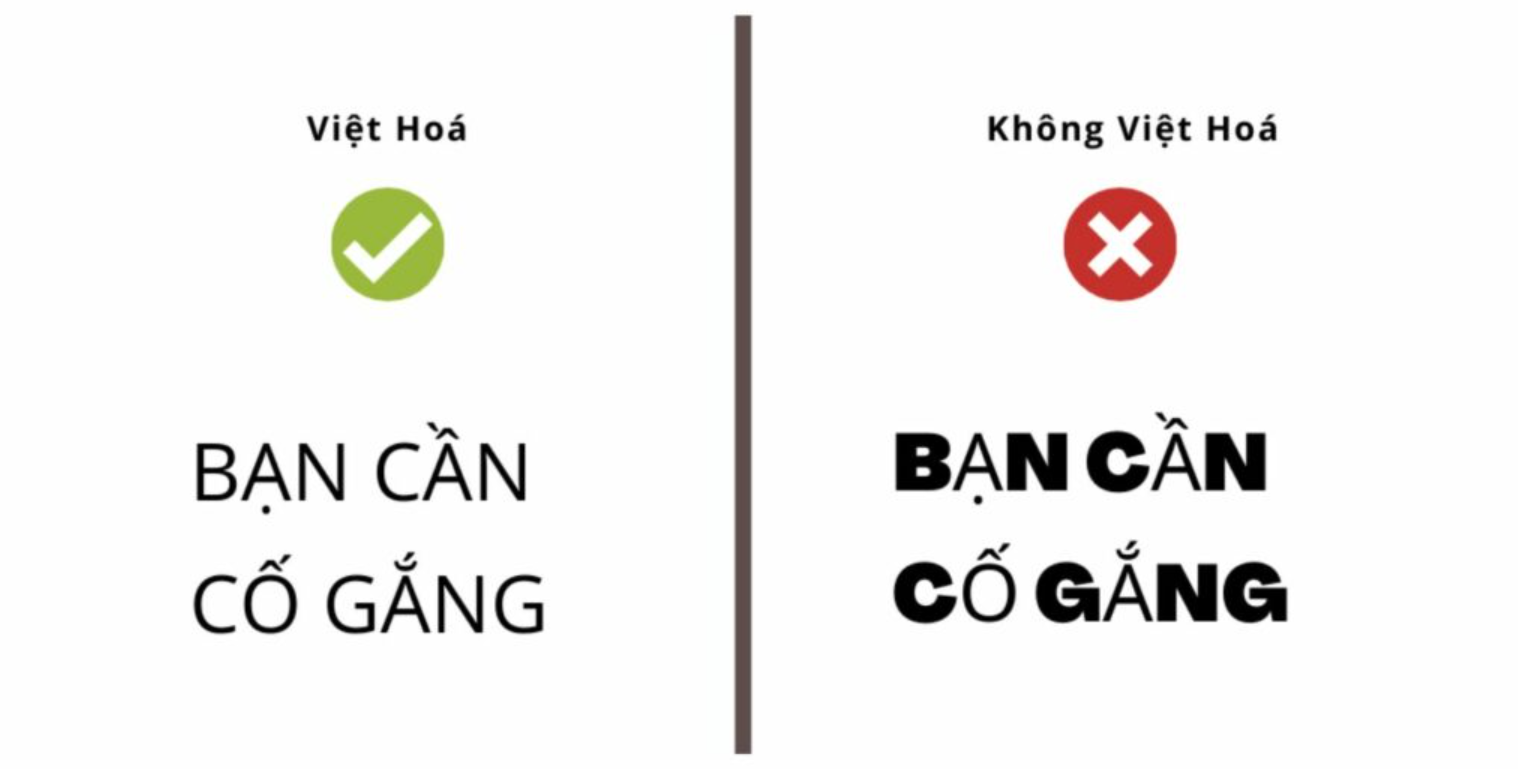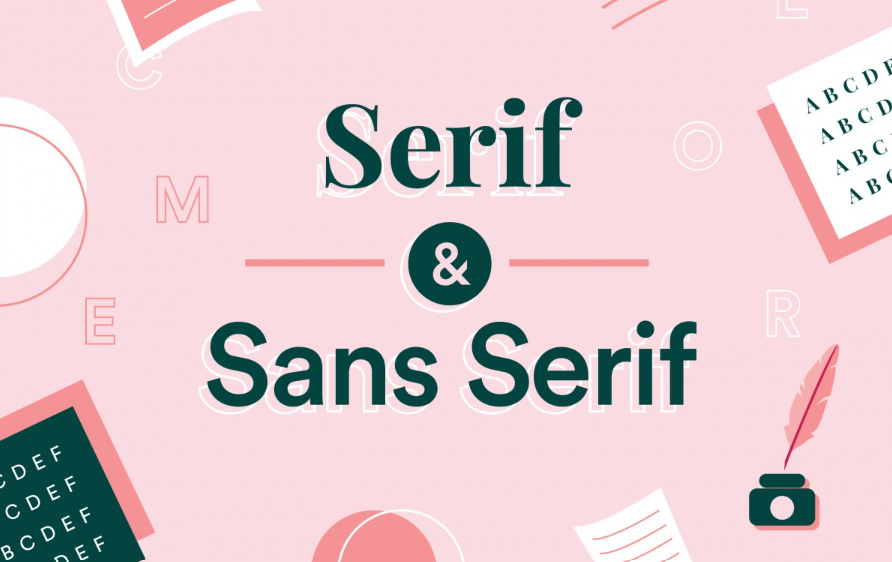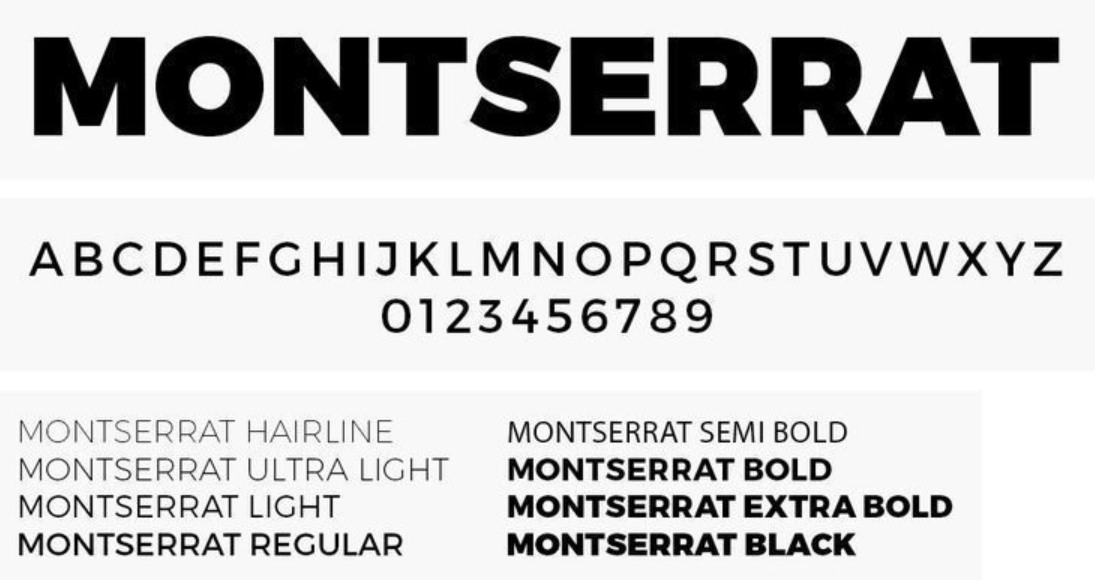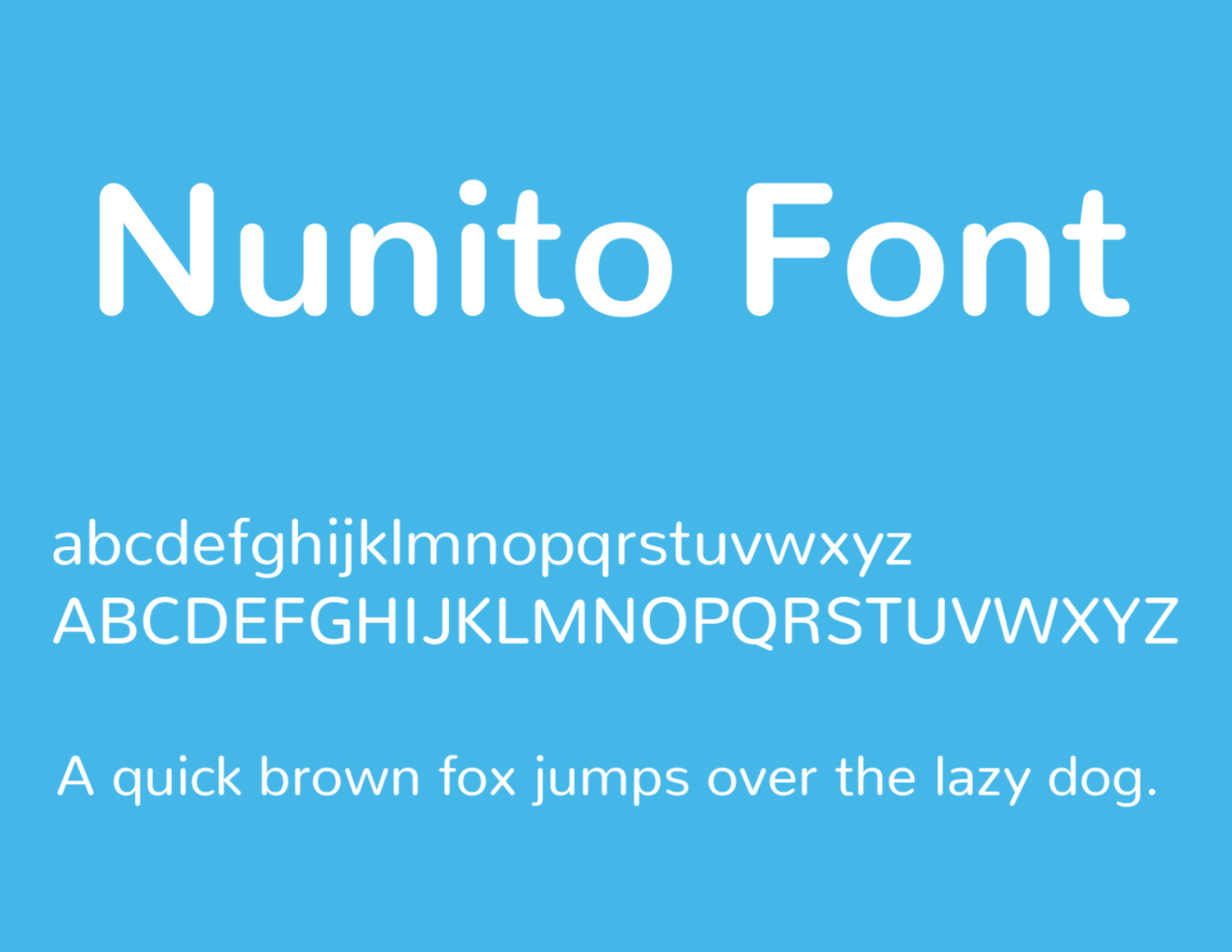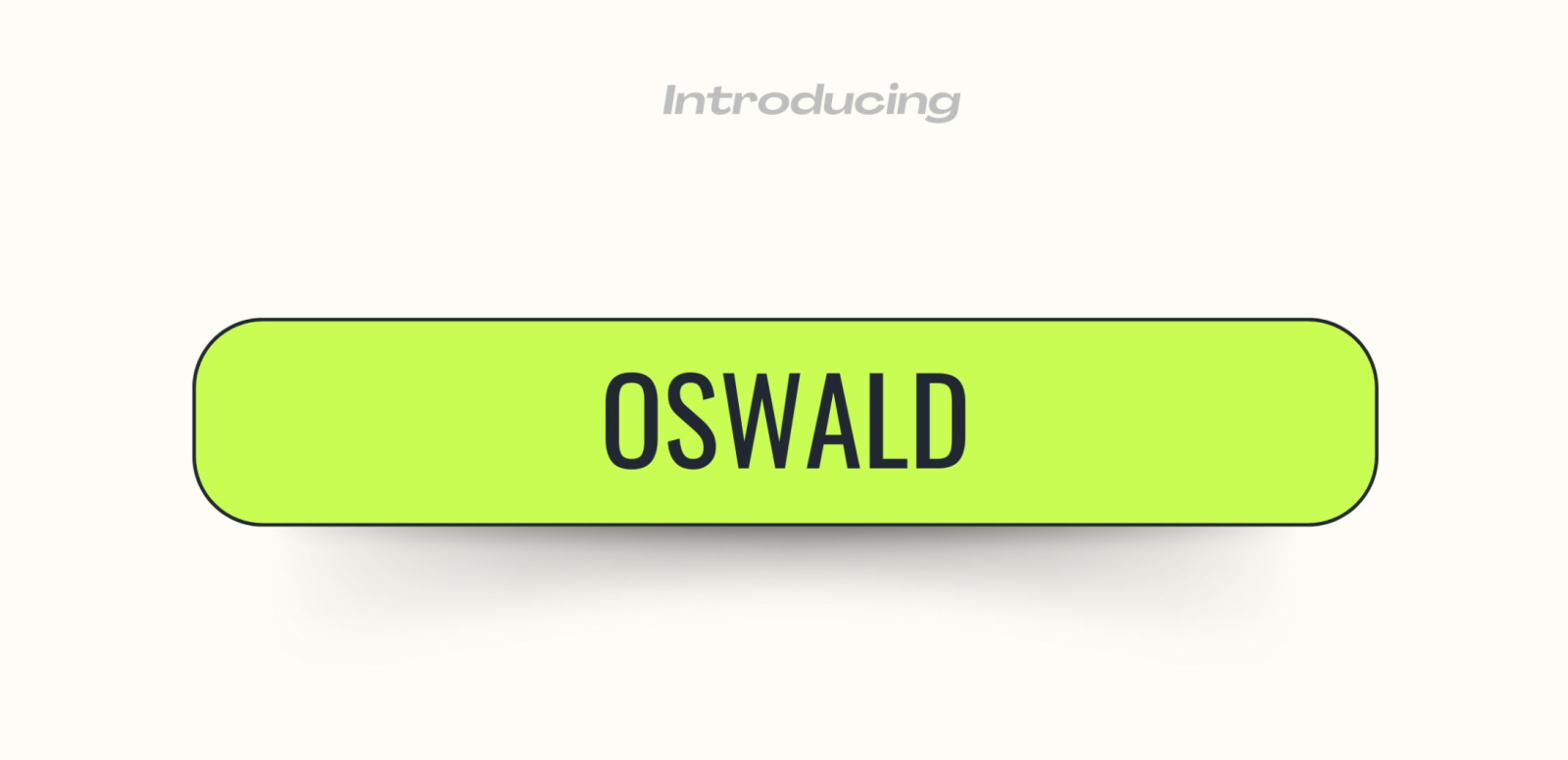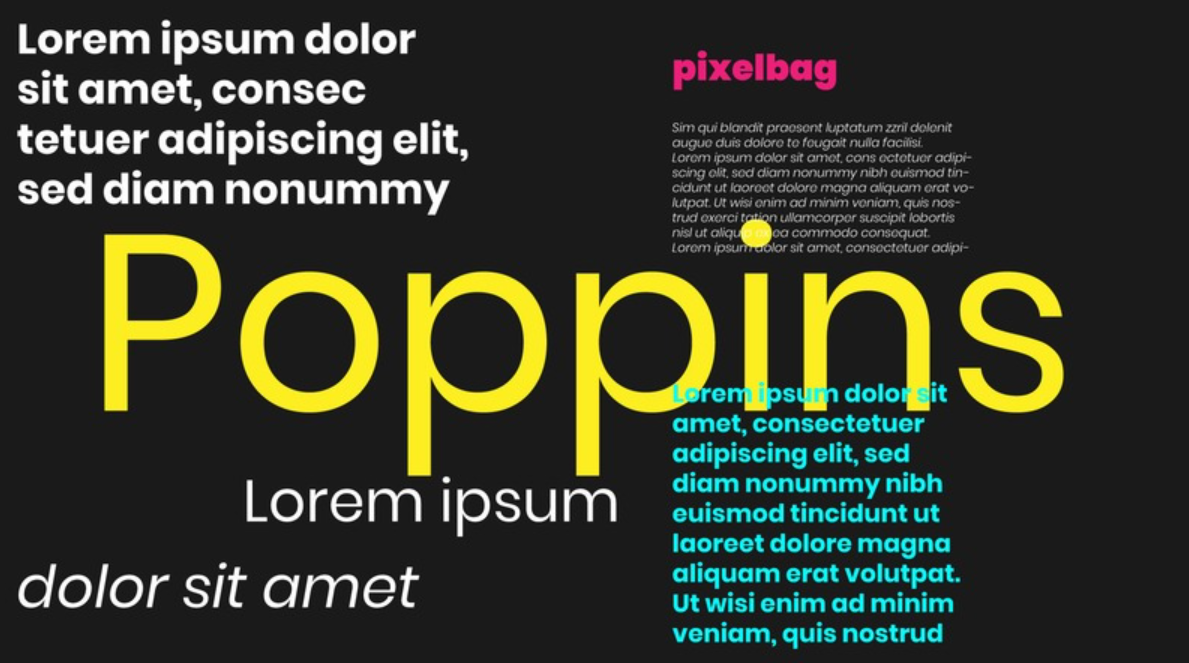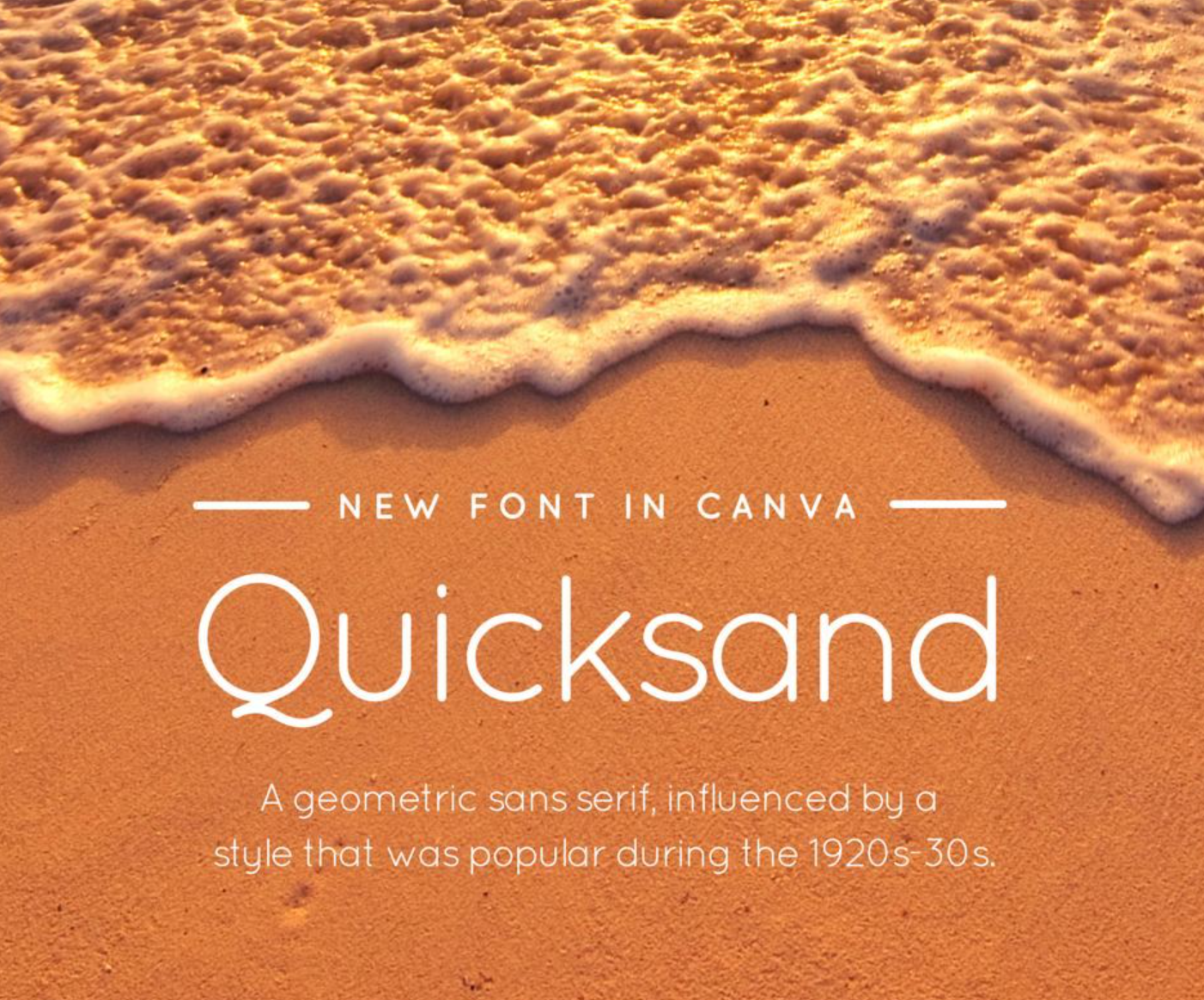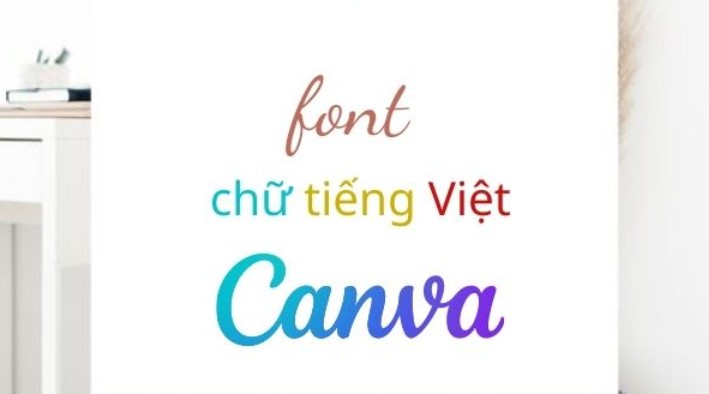
Explore Free Vietnamese Fonts on Canva
Did you know that Canva also has many beautiful fonts on Canva and suitable for you to choose from? If you don't know, let's explore Vietnamese fonts on Canva with SaDesign in this article.
Are you designing on Canva but struggling to find a beautiful Vietnamese-supported font that fits your aesthetic taste? Don't worry! Finding free Vietnamese fonts on Canva is no longer a concern like before. In this article, SaDesign will help you synthesize high-quality Vietnamese fonts that are completely free and can be used directly on Canva. Let's explore now to choose the right font, help your design stand out, inspire and express the spirit you want!
1. How is the Vietnamese font different from the non-Vietnamese font on Canva?
When working with Canva, choosing the right font for Vietnamese can be a daunting task.
The difference between Vietnamese fonts and non-Vietnamese fonts is not only aesthetic but also affects the readability and quality of the design.
Canva Vietnamese Font
Font not Vietnamese
Adjusted and customized to fully support Vietnamese characters and accents.
Font is not designed to support Vietnamese.
Makes designs smooth and professional.
When using, you may encounter problems displaying accented letters.
Fully supports Vietnamese characters, accurately expressing the designer's wishes, highly aesthetic.
Suitable for designing English text or languages ​​without accents.
The number of Vietnamese fonts may be limited, requiring searching and installing from a trusted source.
Does not fully support Vietnamese characters, causing confusion and loss of aesthetics in displaying Vietnamese text.
2. Tips for using Sans Serif & Slab Serif to find beautiful Fonts on Canva
To find beautiful fonts on Canva, you should use the keyword pair Sans Serif & Slab Serif when searching to quickly find the right font:
Serif: Often referred to as “footed letters,” these have small strokes at the ends of letters. They are classic and are often used in formal writing or textbooks.
Sans Serif: This font type has no “feet” at the end of each letter, creating a smooth and modern appearance. Great for creative and youthful designs.
This helps filter out font styles according to the style you want, thereby finding suitable fonts quickly.
Also, don’t be afraid to experiment with different fonts on your design. Canva makes it easy to change fonts, so experiment with each one to see which one works best for you.
3. Top beautiful Vietnamese fonts on Canva that you should try
Below are suggestions for beautiful Vietnamese Canva fonts that are loved by many people:
Montserrat: Designed with strong, symmetrical lines, this font is sturdy and easy to read. Suitable for banner design or conveying messages clearly.
Nunito: with rounded and soft lines, very suitable for presenting visual content or products for children.
Lato: brings elegance and sophistication through its balanced and solid lines. Lato is especially suitable for product packaging, marketing or professional publications.
Oswald: stands out with its modern style with a classic feel, this is the perfect choice for article titles, posters,... or where you want to make a strong impression.
Poppins: has clean and regular lines, giving it an elegant and modern style. This font is popular in slide design, websites and mobile applications.
Quicksand: with a characteristic style of lightness and freedom, very suitable for projects in the education field or products that want to show freshness.
These are just a few of the featured fonts, but there are many more options waiting for you to explore.
4. Experience in Finding Vietnamese Fonts on Canva
To find Vietnamese fonts that have been localized on Canva, you can apply some of the following tips:
Use the keywords “Sans Serif” and “Slab Serif” when searching for fonts. These are two types of fonts that do not have serifs, meaning they do not have small strokes at the ends of letter elements. These fonts tend to have simple, modern designs and are suitable for many different types of designs.
Avoid using fonts that are too complex, ornate, classical, or have many curves. These fonts are often not Vietnamized or have errors when used in Vietnamese. You should choose fonts that are geometric, clear, and easy to read.
Check out what other people think of the best Vietnamese fonts on Canva. You can check out articles, videos, or social media comments to see which fonts are popular and used. You can also ask Canva designers directly about the fonts they use.
5. Why do people choose to use Canva Vietnamese fonts?
When designing in Vietnamese on Canva, choosing the right Vietnamese font is not only a matter of aesthetics, but also a key factor in making the design professional, easy to read and conveying the right message. Below are common reasons why users increasingly prefer to use Vietnamese fonts on Canva: